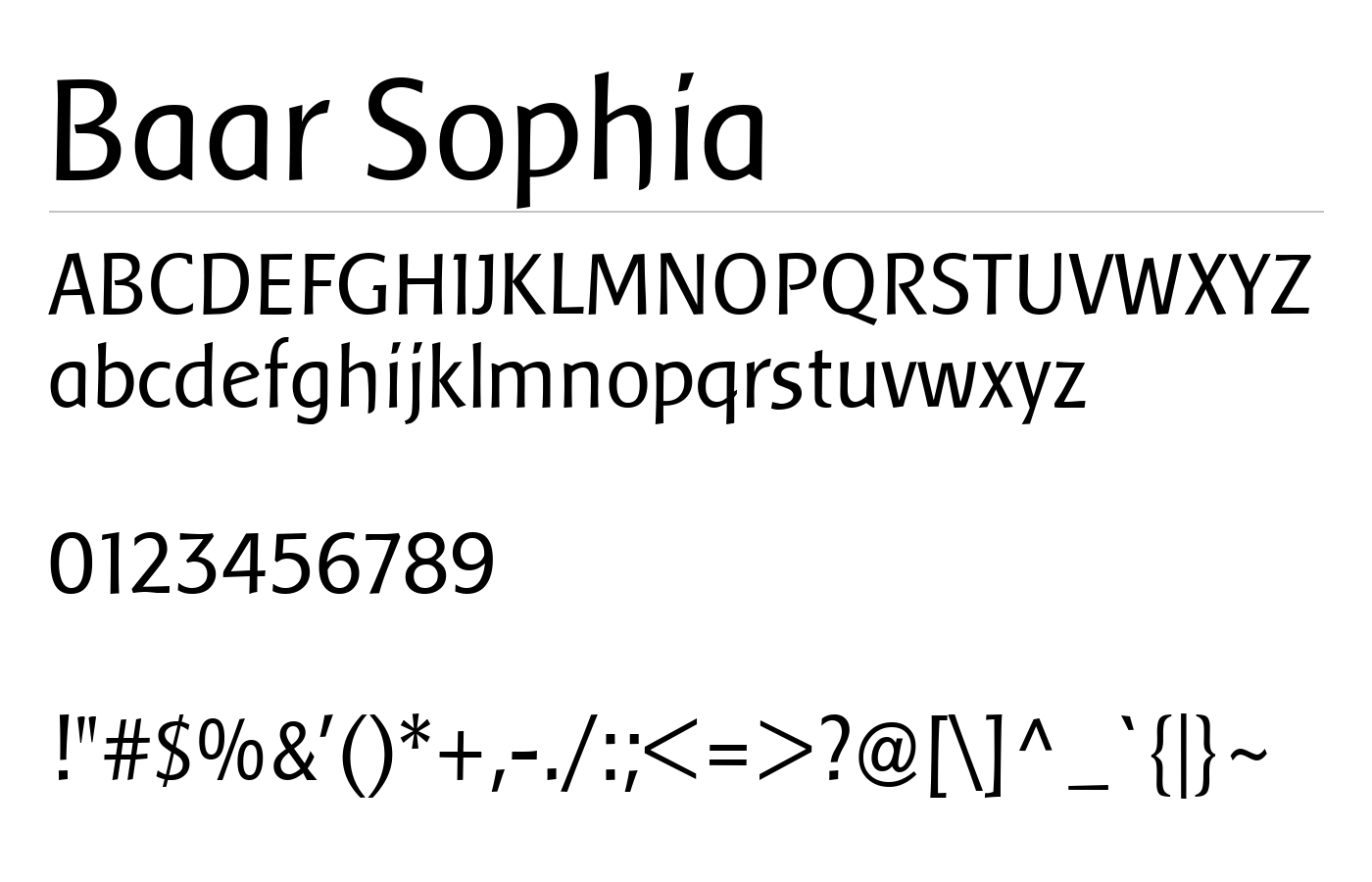
Baar Sophia is a clean and modern sans serif font with a slightly playful touch, featuring narrow proportions and medium stroke contrast. Its upright, gently irregular letterforms offer a humanist feel, making it suitable for both body text and headlines where clarity and a friendly tone are desired. This font works well for branding, editorial design, and digital content that aims to be approachable yet professional.
Baar Sophia Font